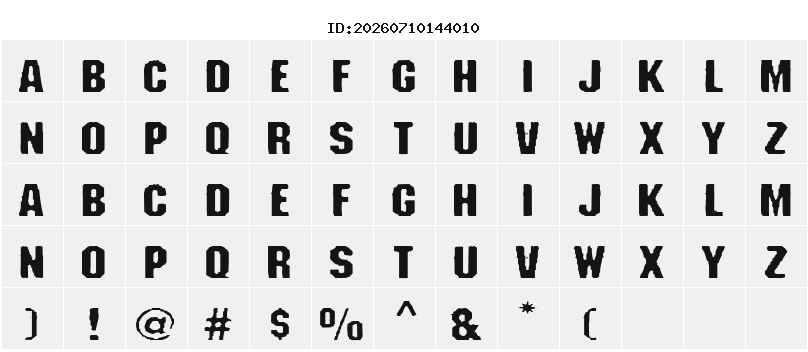
Fanatika Two Preview
• Font Name: Fanatika Two
• Full Font Name: Fanatika Two
About Fanatika Two.ttf
Fanatika Two.ttf is a modern, elegant sans-serif font designed for ultimate readability and visual harmony. Perfect for branding, headlines, web design, and print materials.